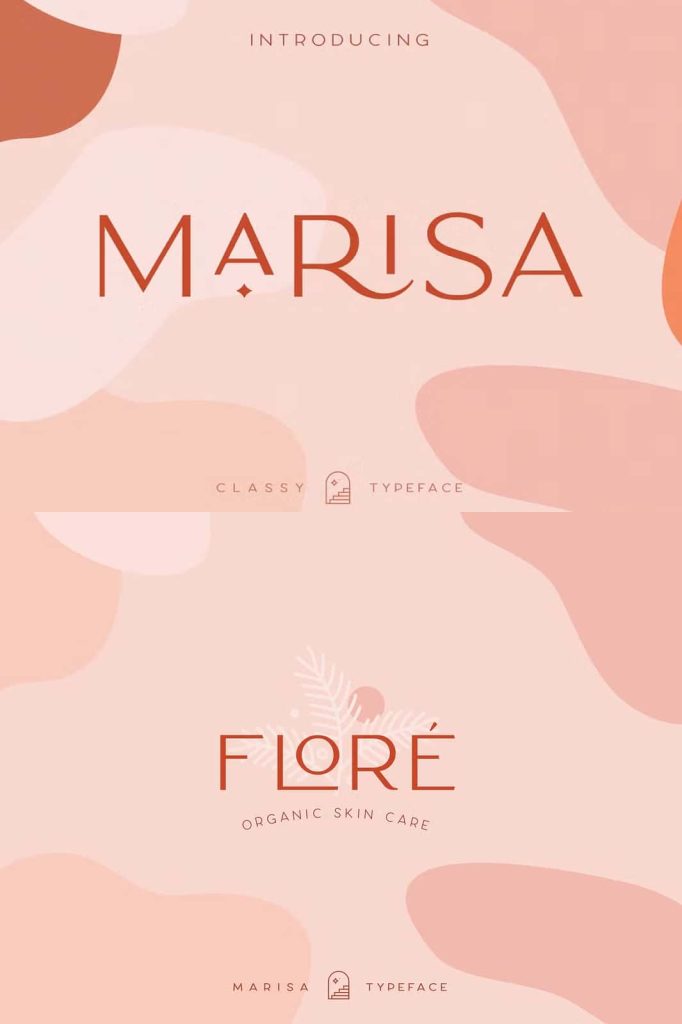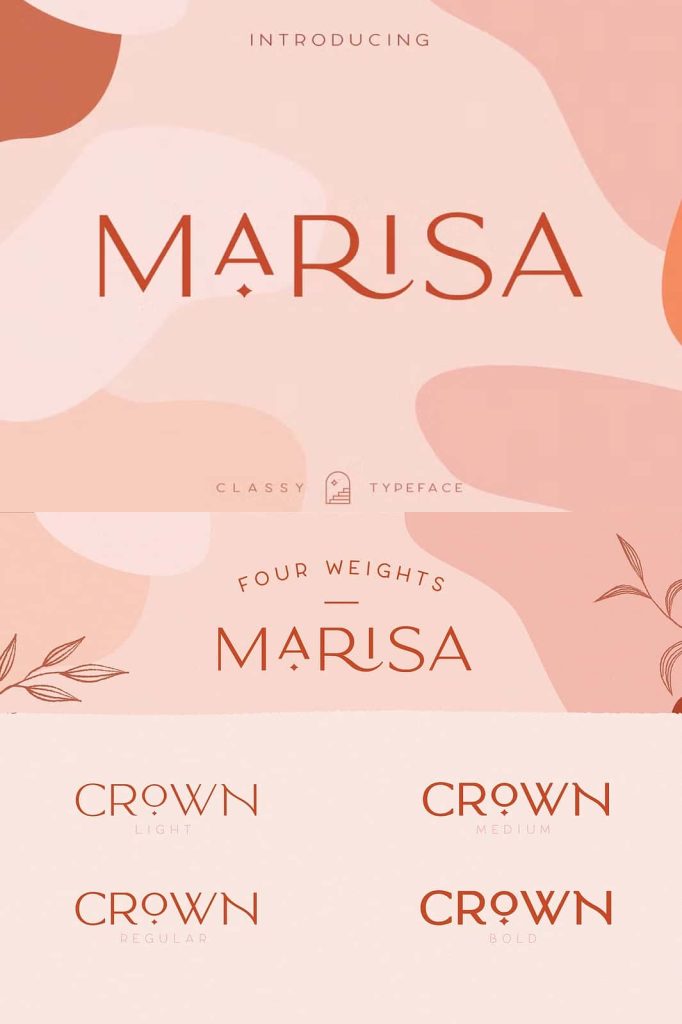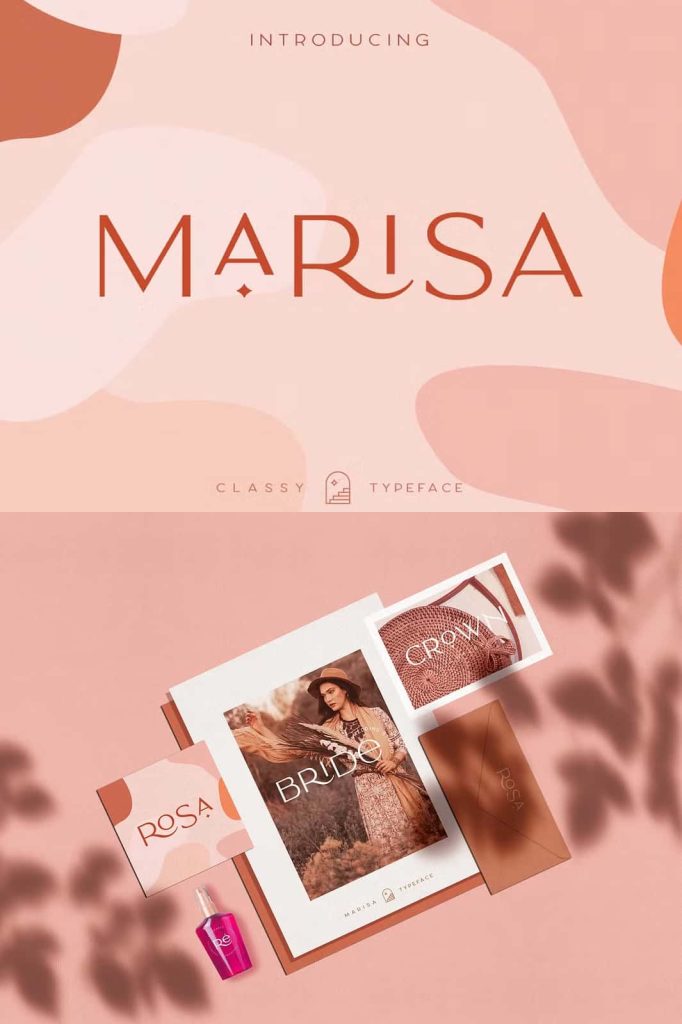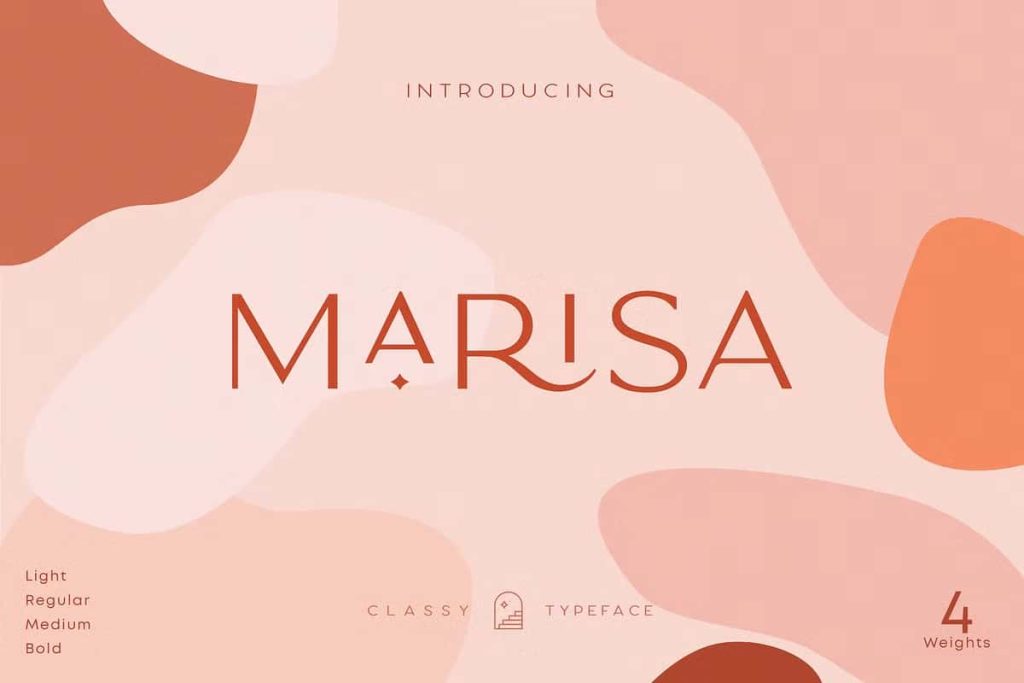
Classy Marisa – Elegant TypefacecoreografyJune 22, 2025Fonts Classy Marisa is a Minimalist Modern Elegant vintage font with beautiful ligatures Download